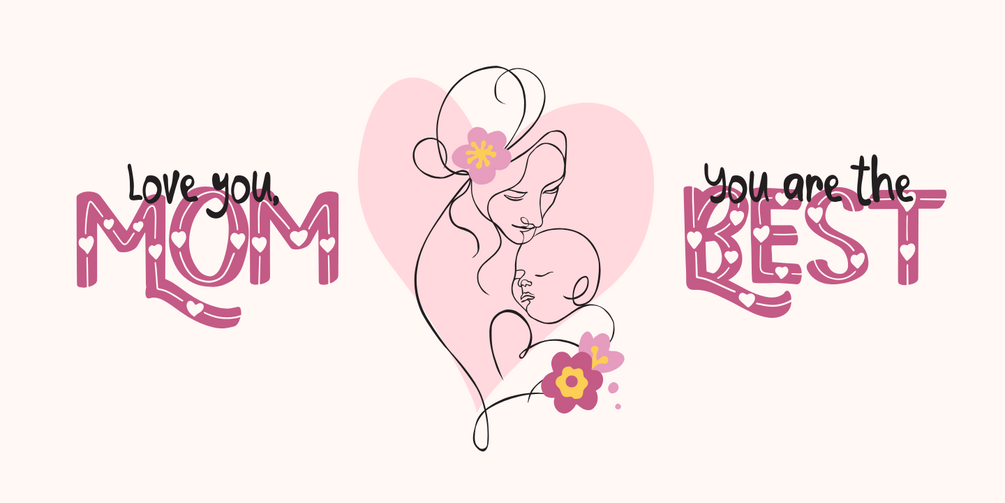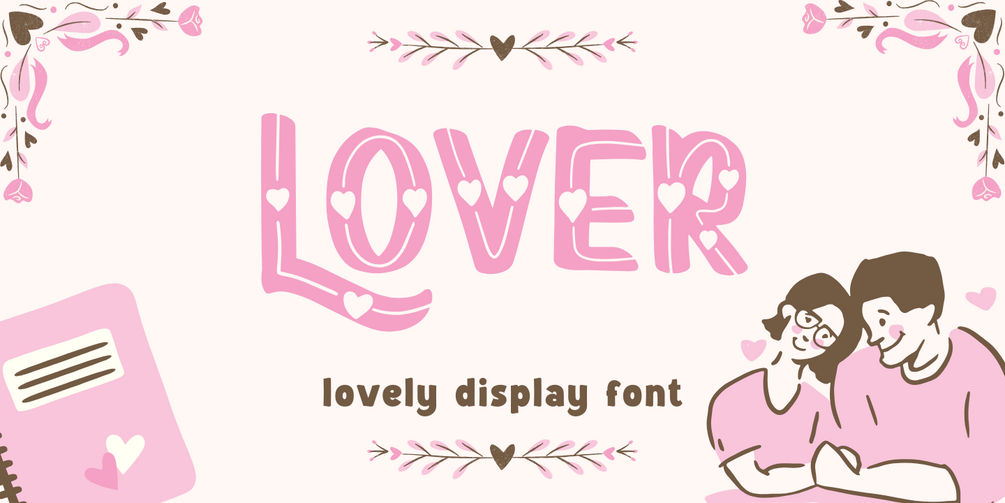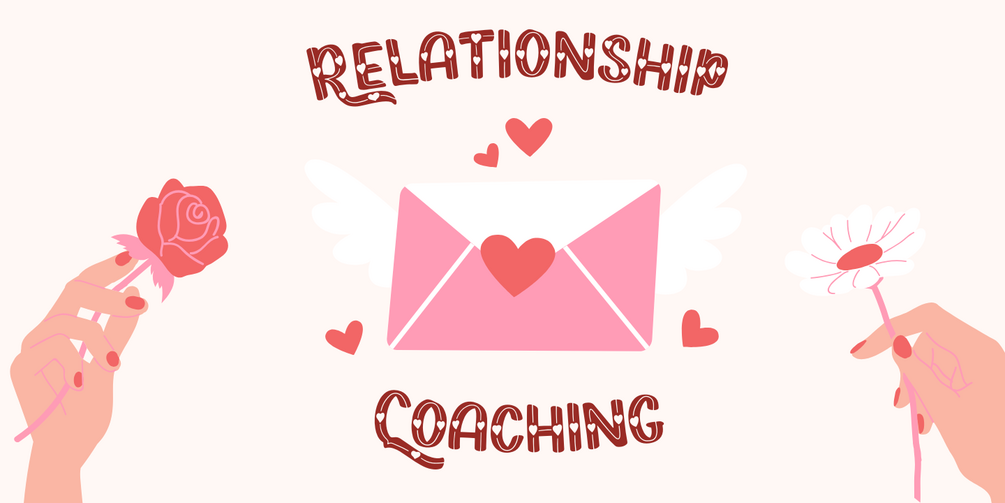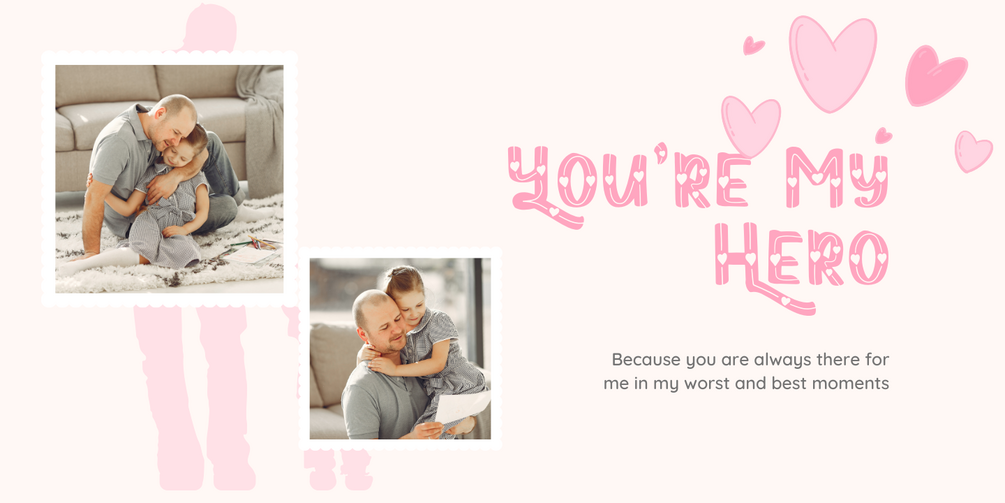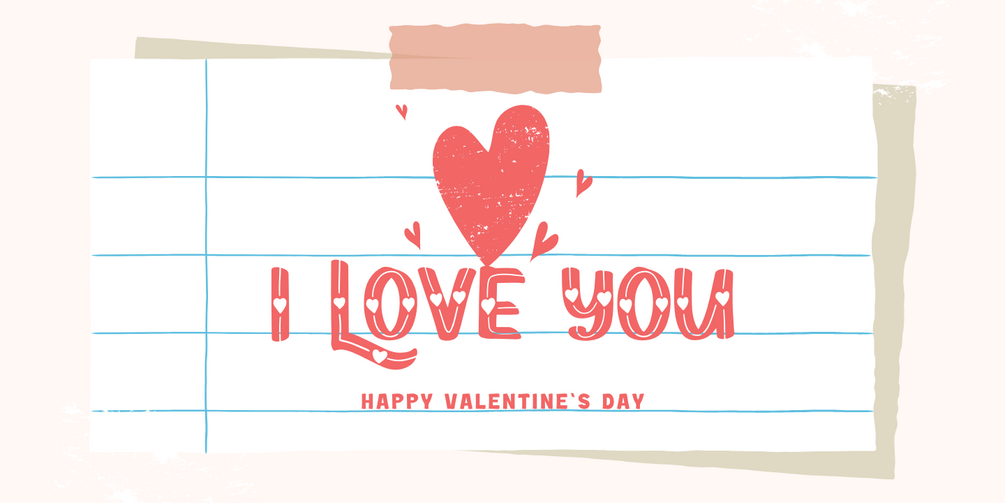
Lover - Lovely Font
This font is a captivating decorative choice, adorned with charming heart ornaments in every detail. Its elegant and romantic design makes it perfect for projects that aim to convey warmth and love, such as wedding invitations, greeting cards, and packaging designs that touch the heart.